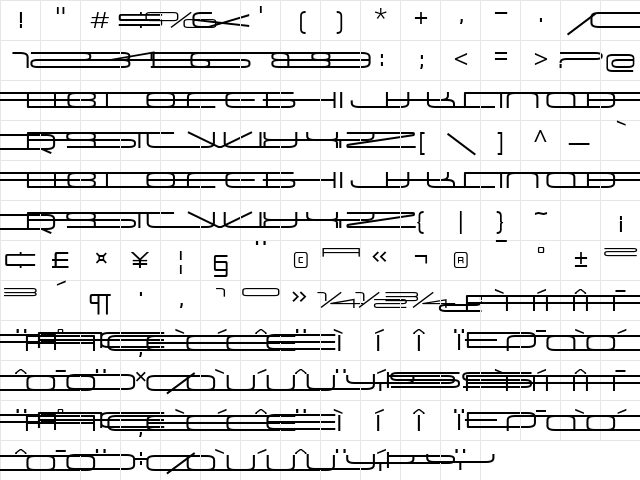
Univox Regular
Design Context for Univox Typeface
Univox is a composed and adaptable typeface that performs quietly and consistently across a wide range of design contexts.